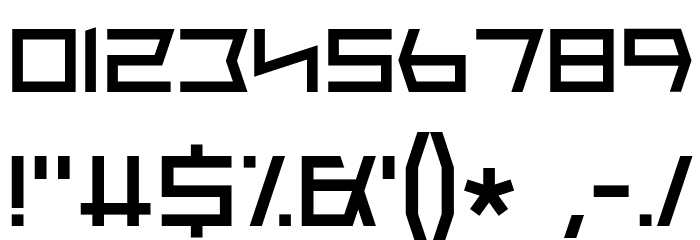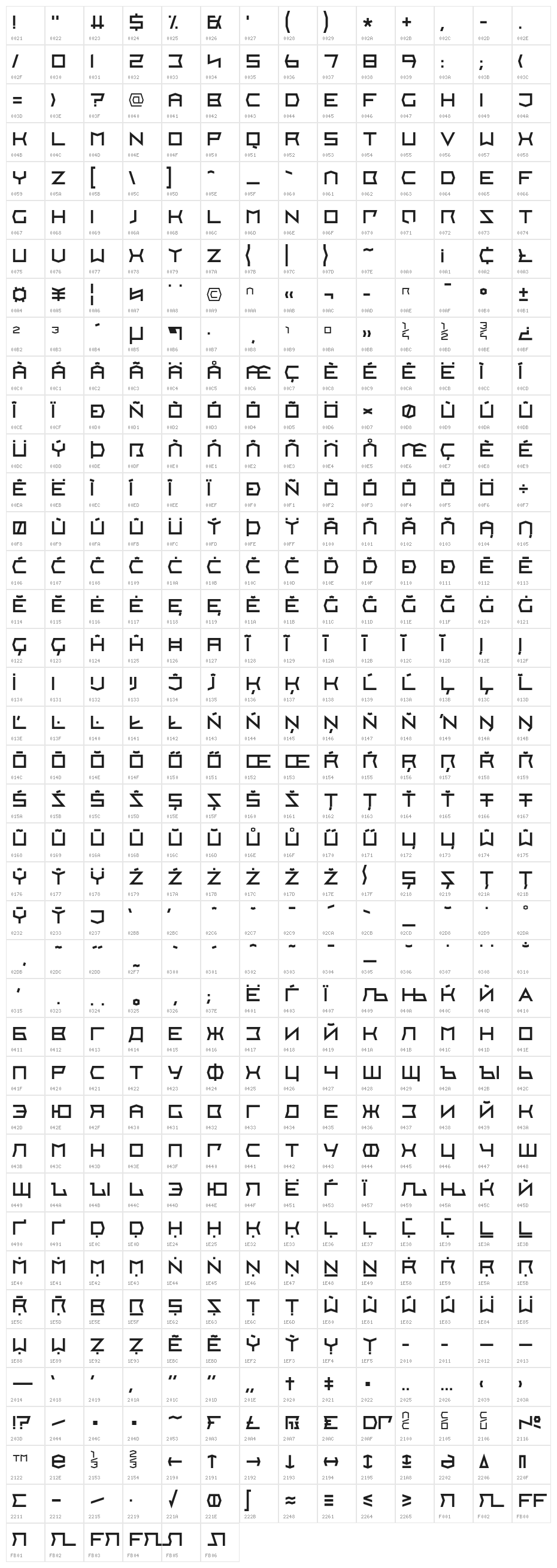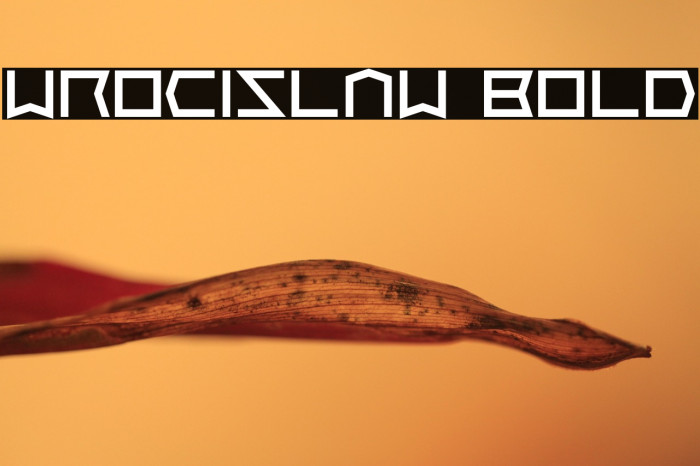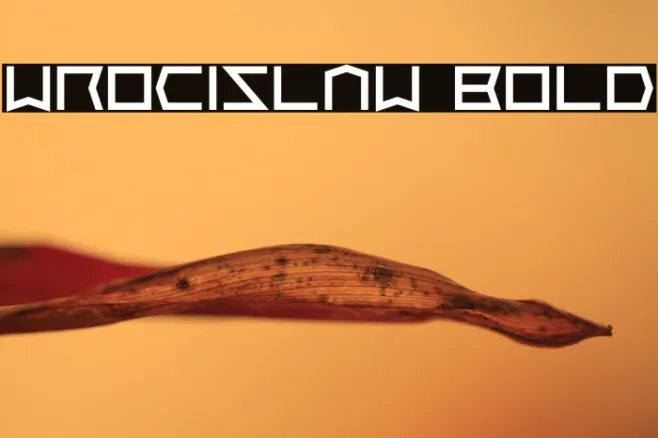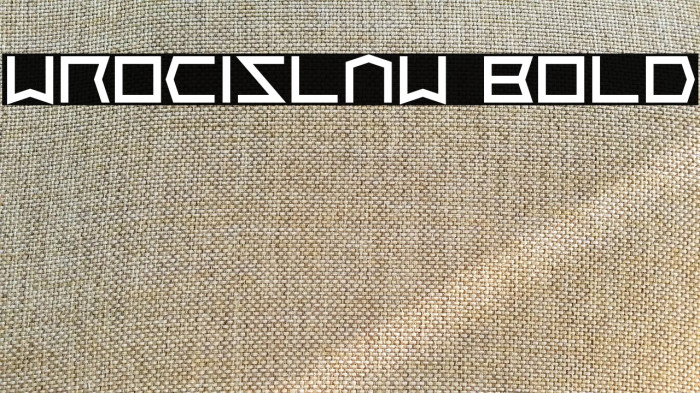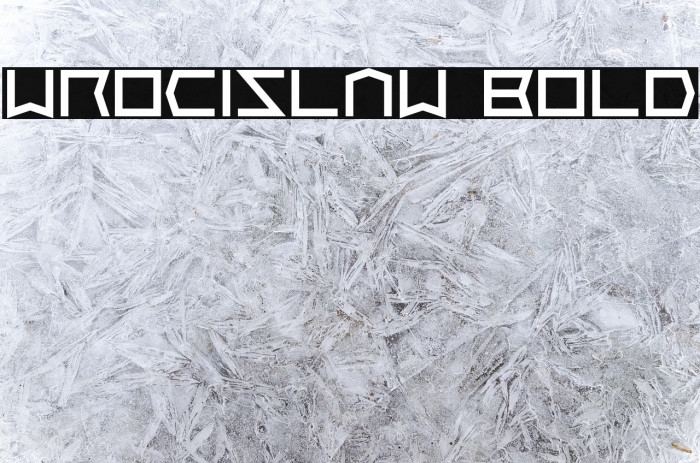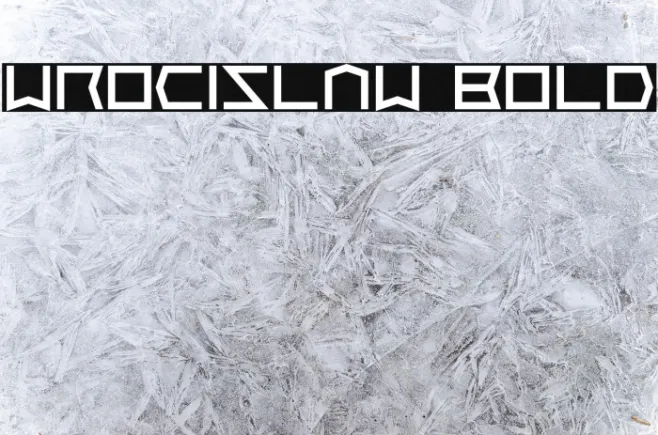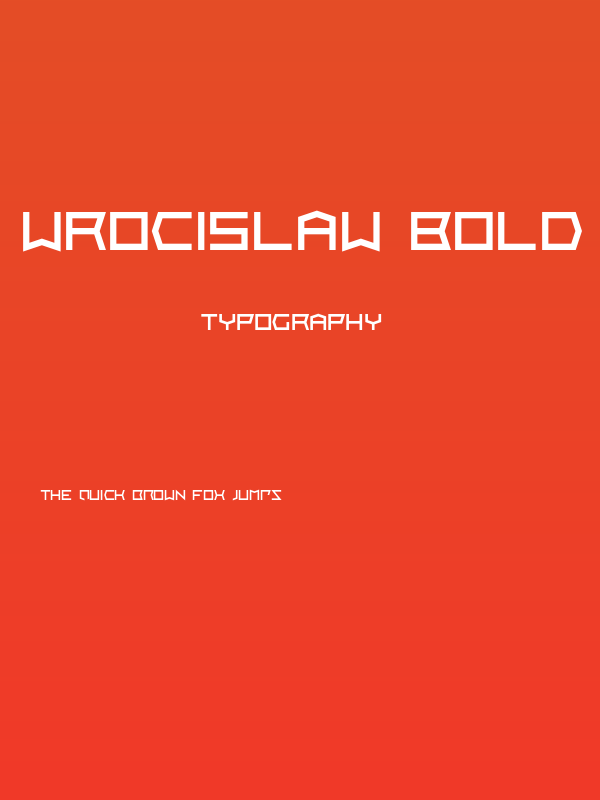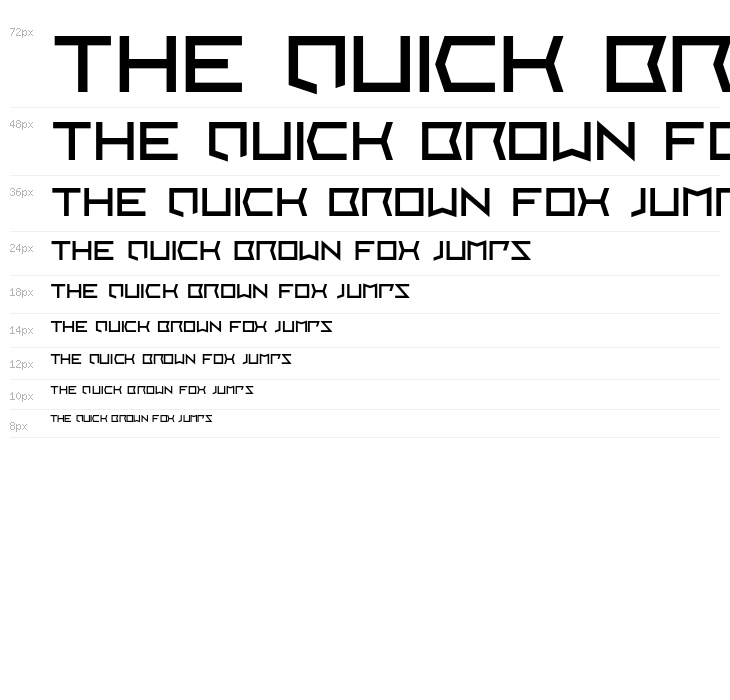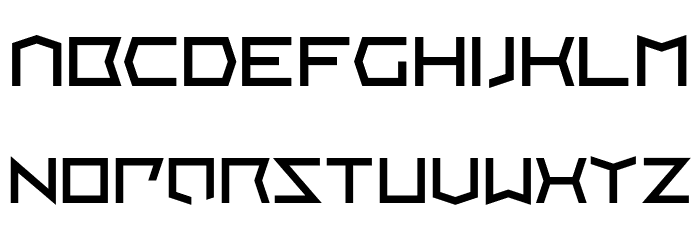
Wrocislaw Bold Font
Wrocislaw Bold Description
This font features a bold, geometric design with a futuristic aesthetic. The characters are constructed with sharp angles and straight lines, giving them a distinct, edgy appearance. The uppercase and lowercase letters maintain a consistent style, emphasizing uniformity and precision. Numbers and special characters follow the same angular theme, ensuring a cohesive look across all glyphs. The font's bold weight and unique style make it stand out, ideal for projects that require a modern and striking visual impact.